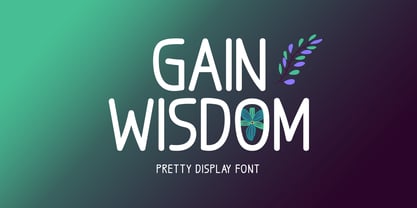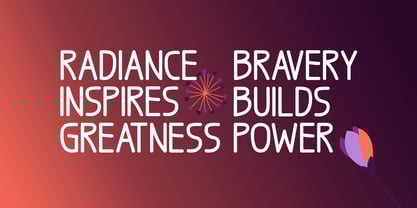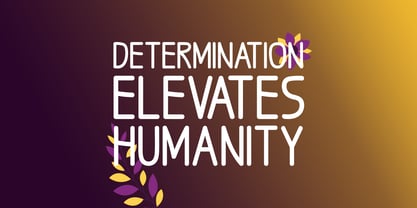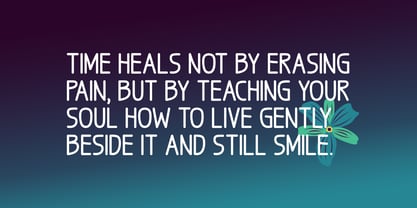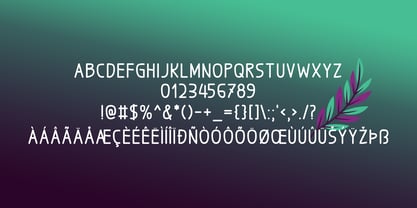
Gain Wisdom
by Seemly Fonts
The Gain Wisdom Font Family was designed by Md. Sohail Bhuiyan and published by Seemly Fonts. Gain Wisdom contains 1 styles. More about this family
Gain Wisdom is a pretty and graceful display font that blends simplicity with charm, making it a beautiful choice for creative projects. Its flowing, natural strokes bring a warm and personal touch to stationery, logos, t-shirts, posters, invitations, and digital designs. Perfect for both casual and elegant themes, Gain Wisdom adds a handcrafted feel and gentle sophistication to every creation.
Designers: Md. Sohail Bhuiyan
Foundry: Seemly Fonts